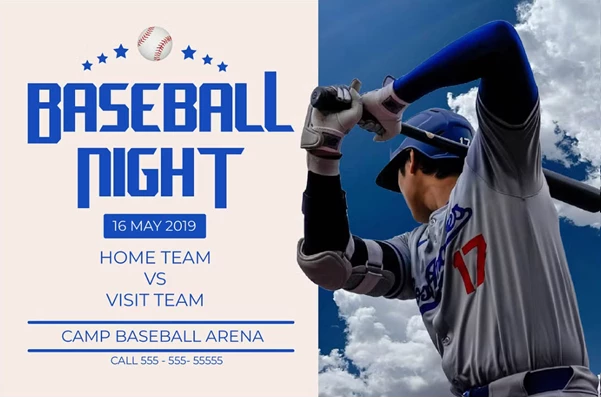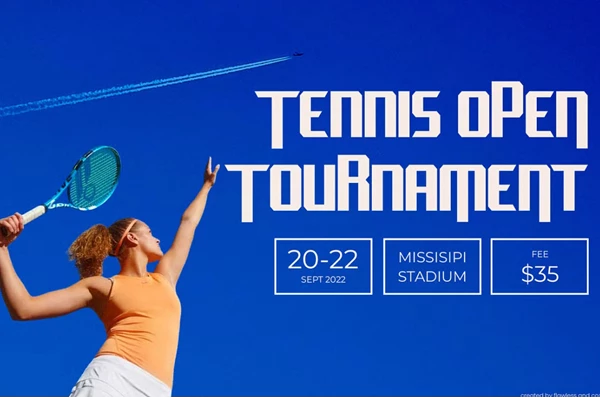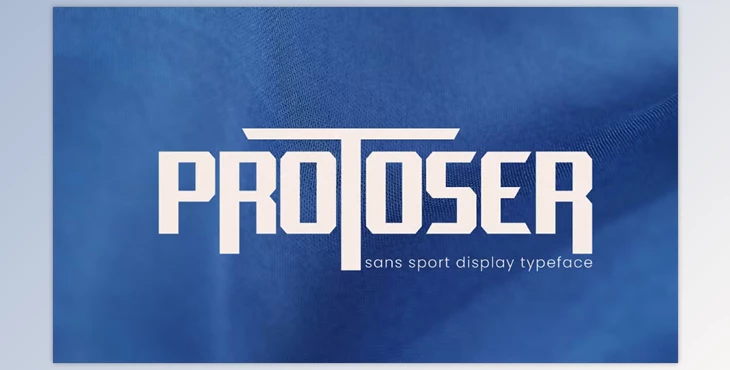
Protoser - Sports Font:
Protoser is a lively and spirited sans-display typeface intended to add a touch of an athletic stance and a futuristic twist to any project. Its vertical and lettered elements are ideal for sporting goods graphics, tournament flyers, and even high-performance clothing due to its sharp geometric precision.
Such a font not only caters to the sports aesthetic but sets the benchmark for it, providing the speed, energy, and clarity needed for the design work. Proposers can be used to design a team’s emblem, advertise a gym, or even visualize esports branding. No matter the task, the font renders action and discipline with every stroke.
- All Caps Typeface
- Unique Sport-Inspired Design
- Strong Geometry & Sharp Angle
- Numerals & Punctuation
- Multilingual Support
Protosers are tailored precisely to suit the strength and contemporary athletic look to meet the desires of designers and brands, focusing on energetic and vivid graphics. Bold and dynamic visuals demand a strong brand identity and logo, and Protoser’s sharp, angular structures and vibrant design are essential for these. From sports teams to bold startups and high-octane events, the typeface ensures your message is communicated powerfully and accurately.